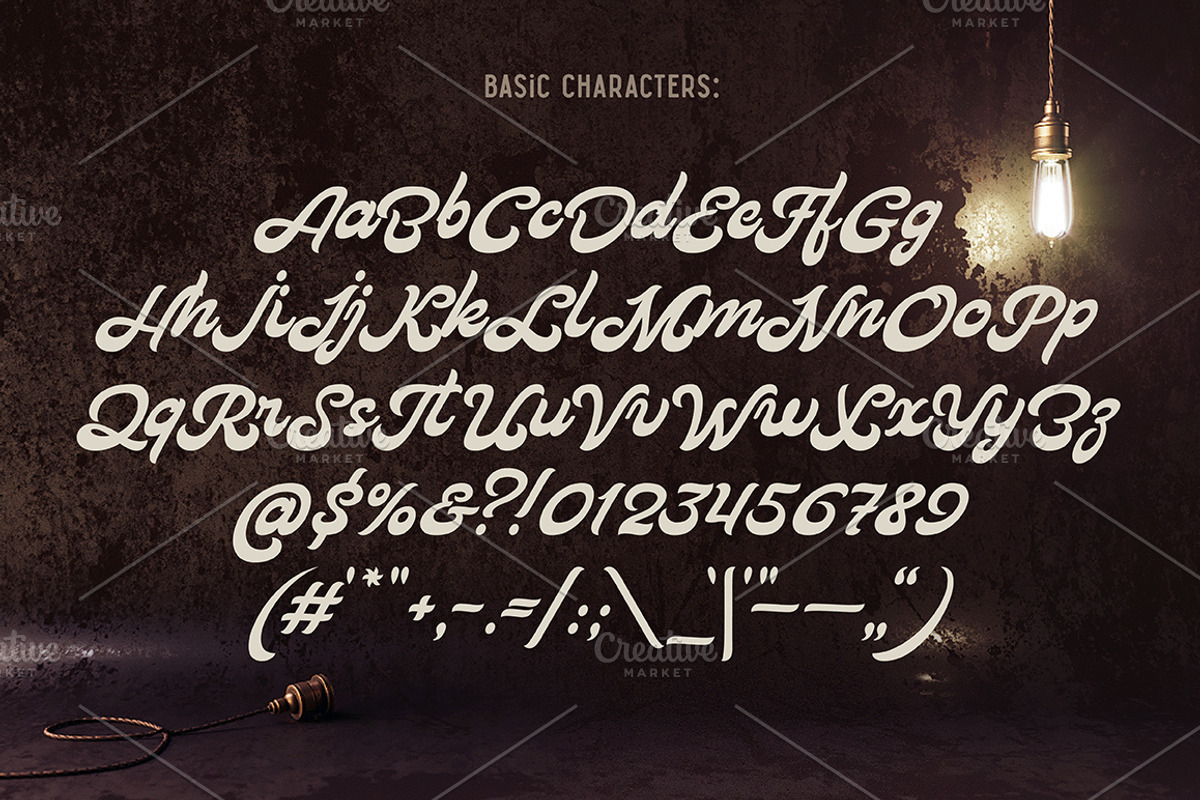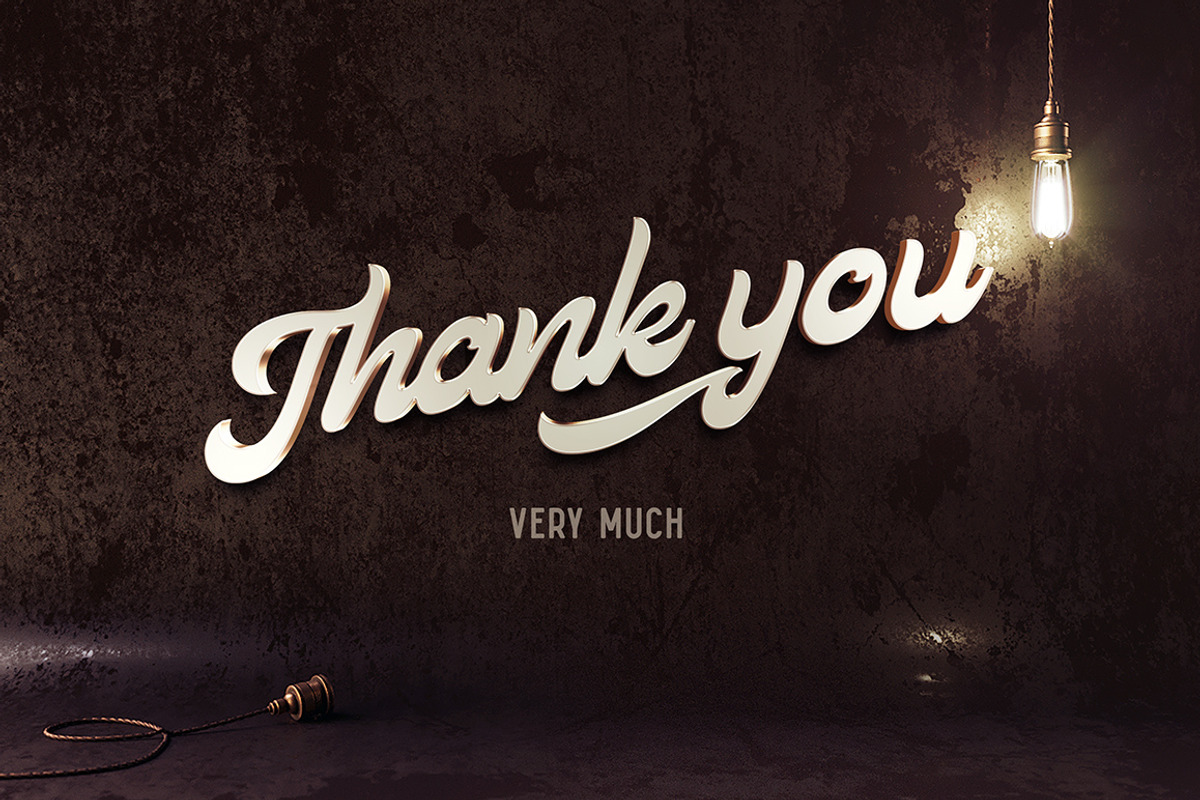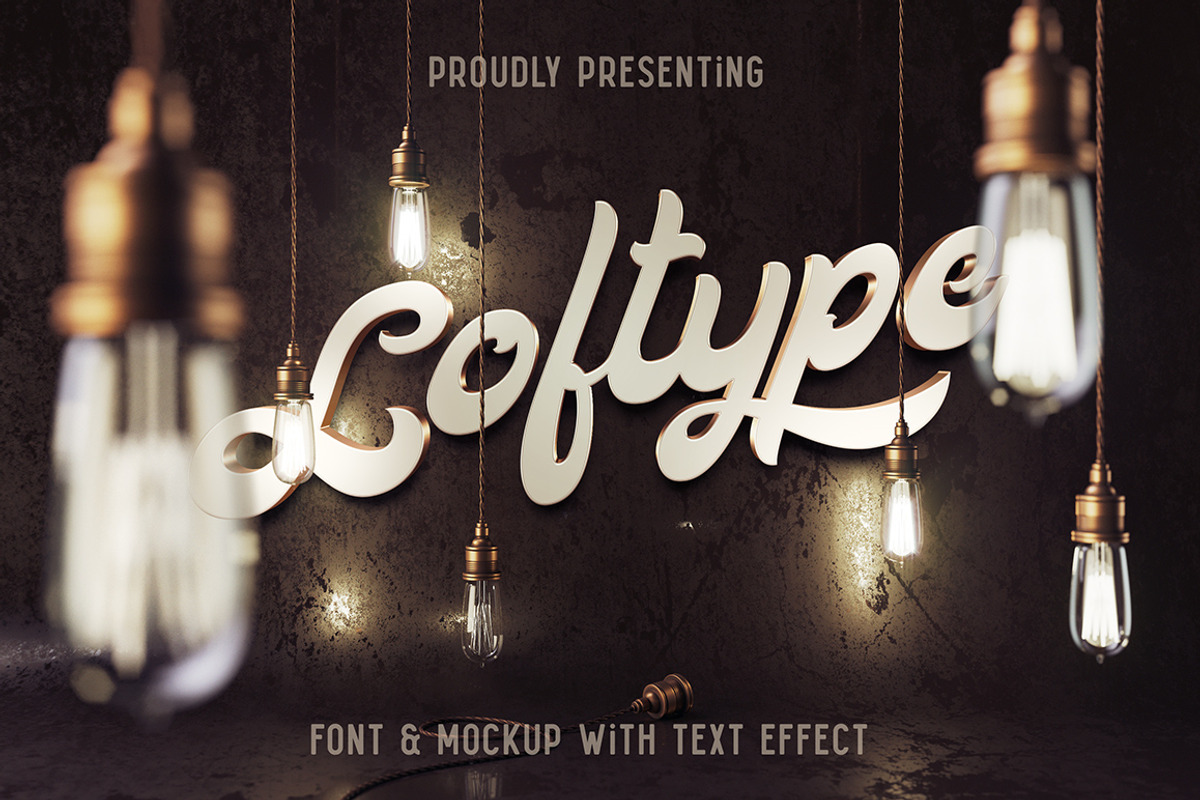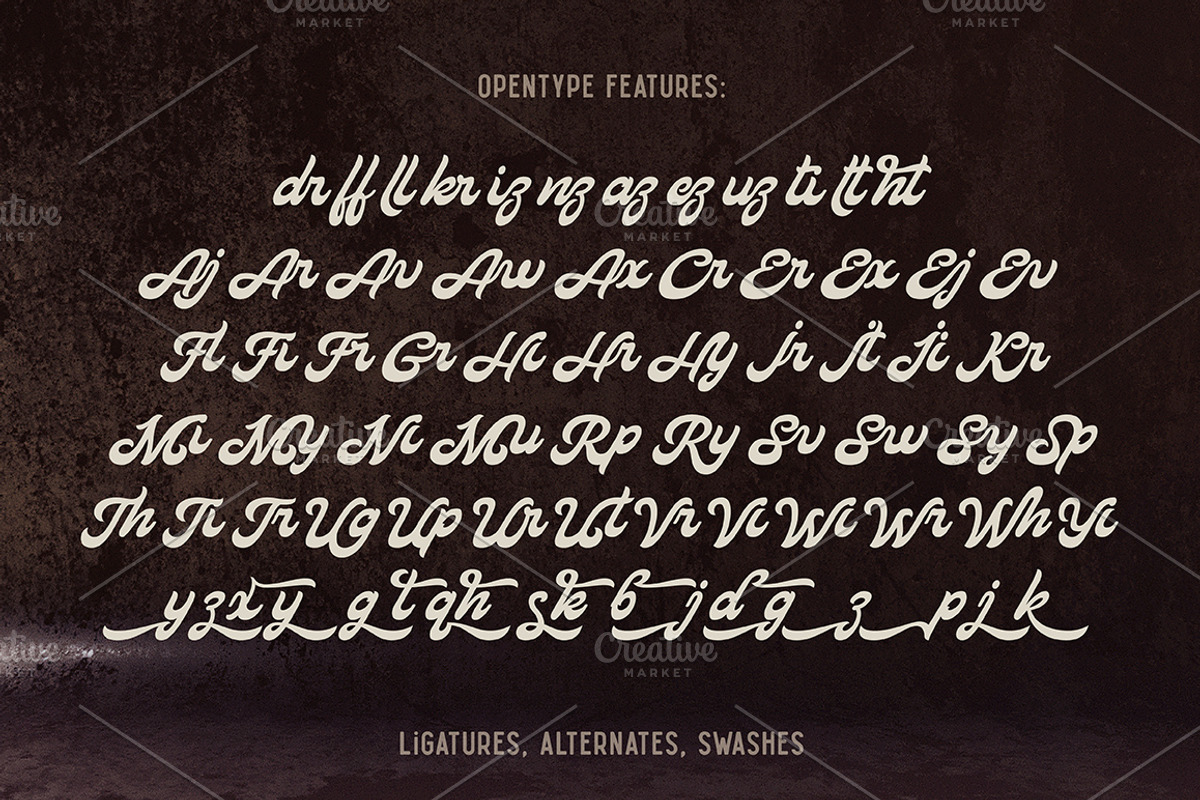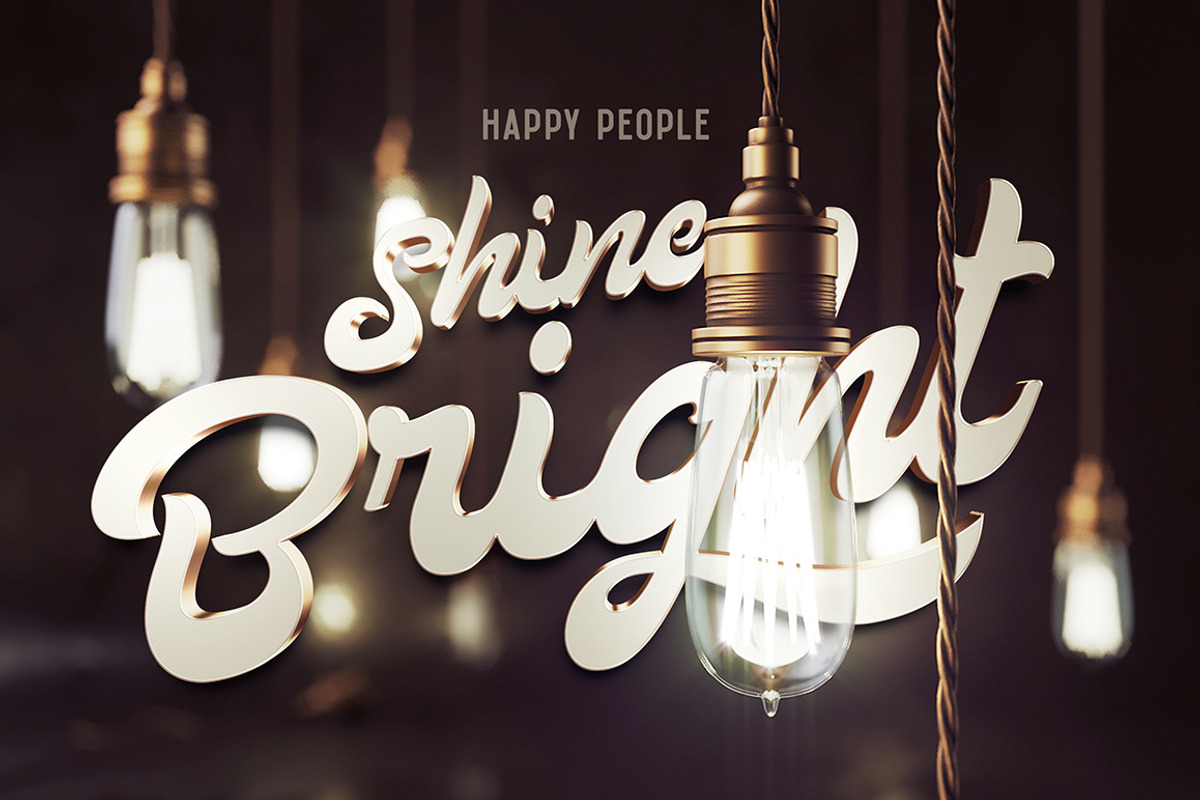
Loftype Font + Mockup
Loftype Font + Mockup by Gleb Guralnyk is a font selected for branding, posters, packaging, typography.
- It includes a font files with various OpenType features - lots of ligatures and alternate characters with swashes (you can access them troug
Note: This font contains only latin characters (all available characters you can see on 2nd & 4th screenshots) Show More
Loftype Font + Mockup by Gleb Guralnyk fits naturally into Branding, posters, packaging, typography.